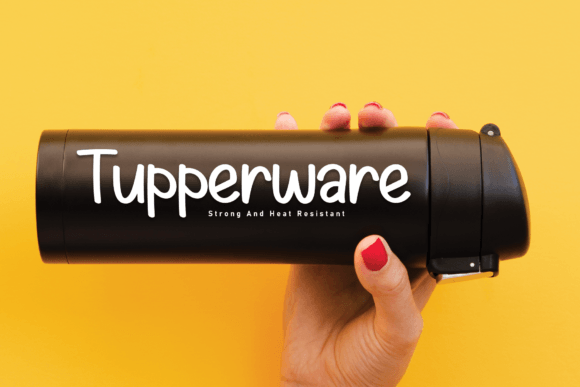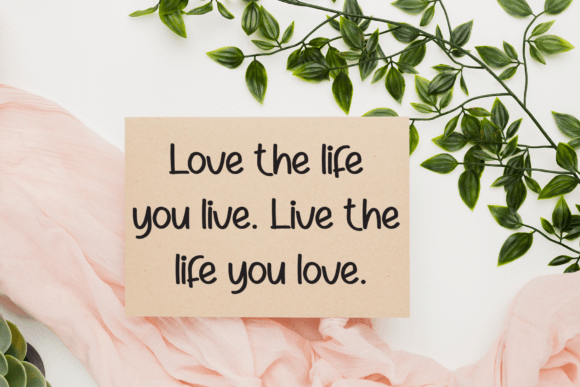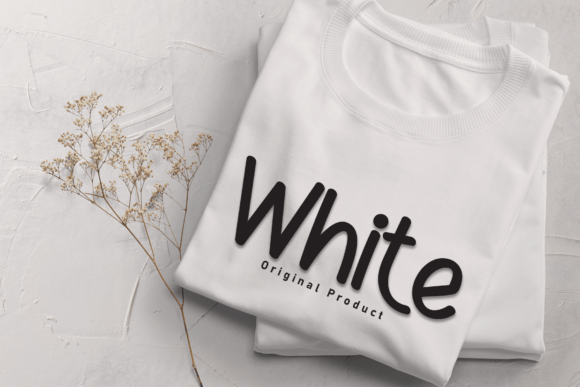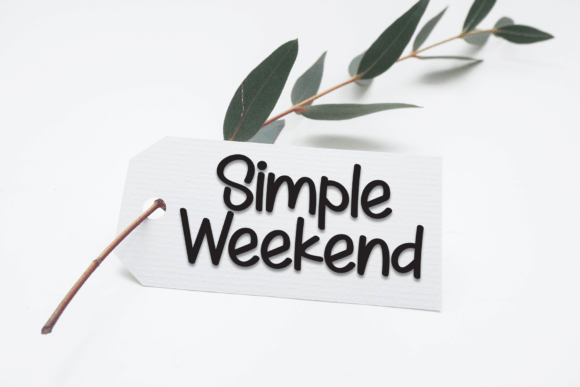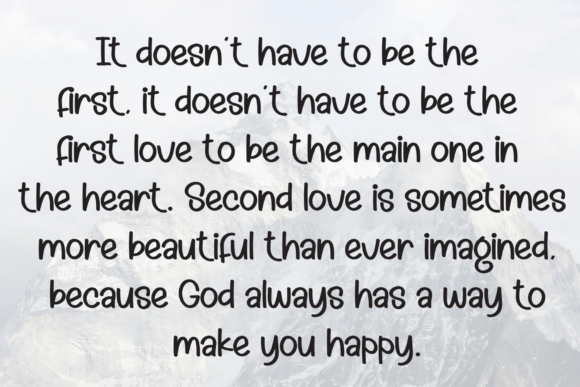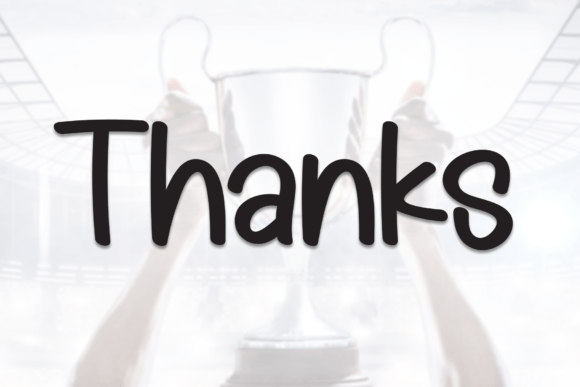
Champion Font: The Charismatic Charm of Handwritten Display Font
Are you looking for a font that exudes sweetness, friendliness, and whimsy? Look no further than the Champion Font, a delightfully handwritten display font that is perfect for crafting heartfelt wedding invitations, captivating greeting cards, or any design project that yearns for a playful dash. With its adorable, fun-filled appeal, this font is sure to leave an endearing impression on your audience.
The Essence of Whimsy
The Champion Font embodies the essence of whimsy, with its playful and carefree design. Each letter is carefully crafted to convey a sense of joy and friendliness, making it perfect for designers and crafters who want to add a touch of personality to their work. Whether you’re creating a wedding invitation, a greeting card, or a social media graphic, this font is sure to bring a smile to your audience’s face.
Perfect for Heartfelt Designs
The Champion Font is particularly well-suited for designs that require a personal touch. Its handwritten charm makes it perfect for wedding invitations, anniversary cards, and other heartfelt designs. The font’s sweetness and friendliness will help to create a warm and inviting atmosphere, making your design feel more personal and engaging.
Adding a Touch of Joy to Your Artistry
For designers and crafters who want to add a touch of joy to their artistry, the Champion Font is a must-have. Its fun-filled appeal will help to bring your designs to life, adding a playful dash that will set your work apart from the rest. Whether you’re creating a logo, a brochure, or a social media graphic, this font is sure to add a touch of personality and whimsy to your design.
Key Features of the Champion Font
- Handwritten design: Each letter is carefully crafted to convey a sense of joy and friendliness.
- Whimsical charm: The font’s playful design makes it perfect for designers and crafters who want to add a touch of personality to their work.
- Sweet and friendly: The font’s sweetness and friendliness make it perfect for heartfelt designs, such as wedding invitations and greeting cards.
- Playful dash: The font’s fun-filled appeal will help to bring your designs to life, adding a playful dash that will set your work apart from the rest.
Tips for Using the Champion Font
Here are a few tips for using the Champion Font in your designs:
- Use it for headlines: The Champion Font is perfect for headlines, where its playful design can really shine.
- Pair it with a simple font: For body text, pair the Champion Font with a simple font to create a nice contrast.
- Experiment with colors: The Champion Font looks great in a variety of colors, so don’t be afraid to experiment and find the perfect hue for your design.
In conclusion, the Champion Font is a charismatic and charming handwritten display font that is perfect for designers and crafters who want to add a touch of whimsy to their work. With its sweet and friendly design, this font is sure to leave an endearing impression on your audience. Whether you’re creating a wedding invitation, a greeting card, or a social media graphic, the Champion Font is a must-have for anyone seeking to add a touch of joy to their artistry.